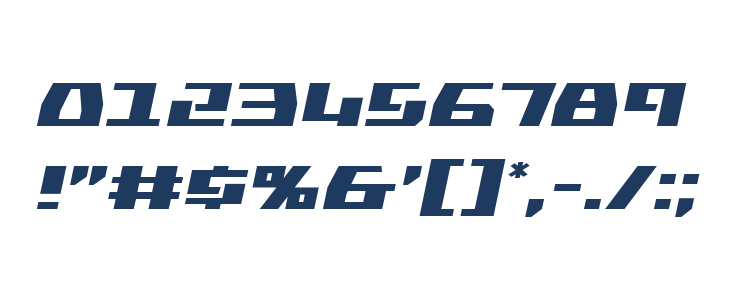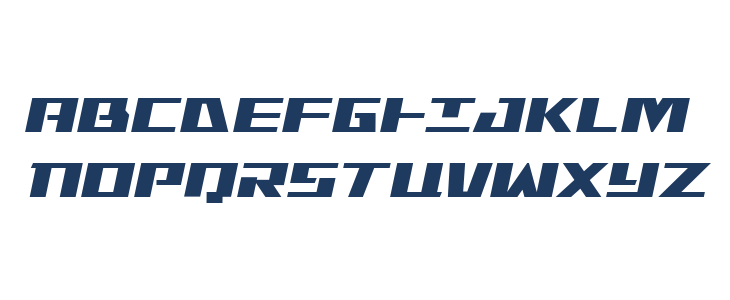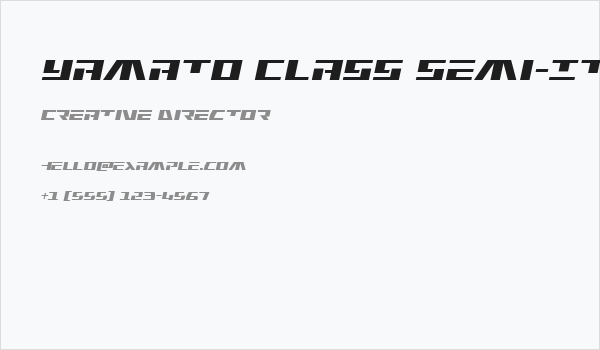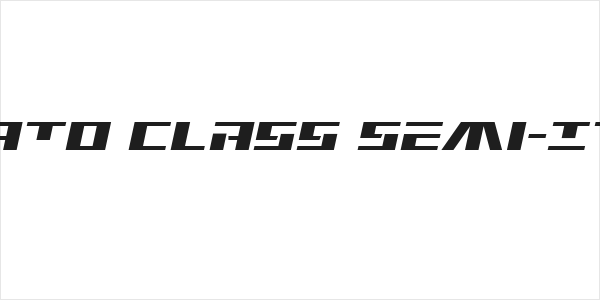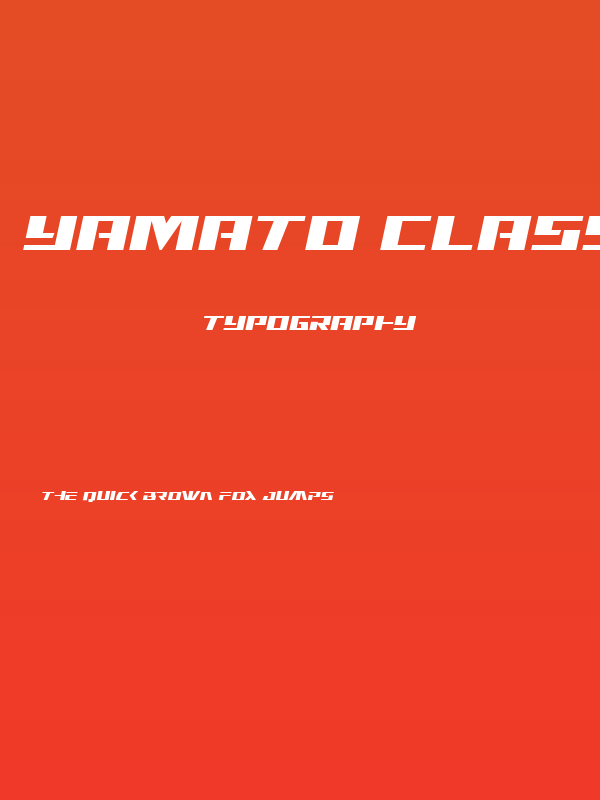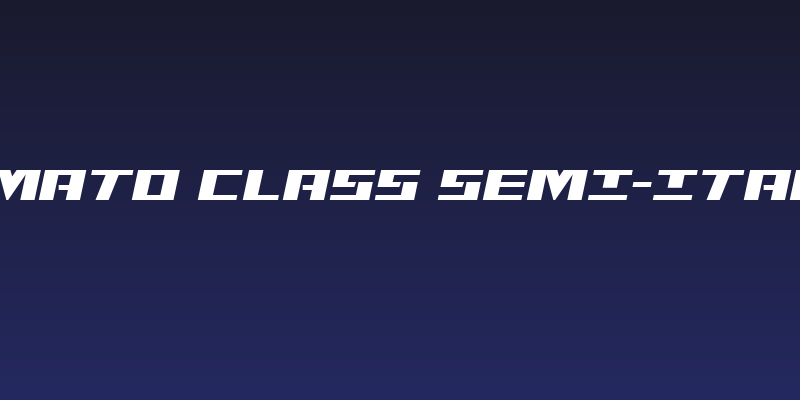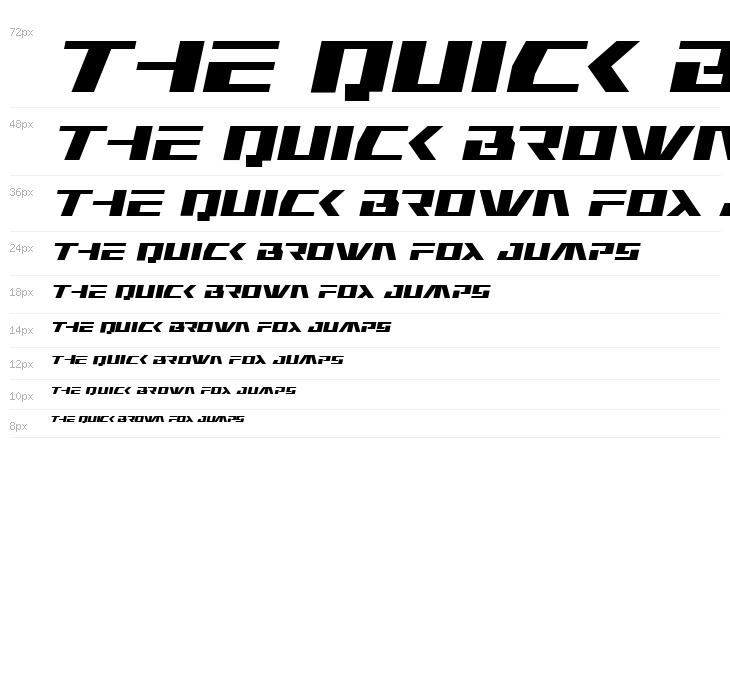
Yamato Class Semi-Italic Font
Yamato Class Semi-Italic Description
A geometric, angular sans-serif typeface with a semi-italic slant, featuring bold, blocky letterforms and sharp diagonal cuts. The characters are wide with tight spacing and consistent stroke thickness, giving a futuristic and dynamic appearance.
| Overall Style | Futuristic, Decorative, Modern |
| Proposed Projects | Video game titles, sci-fi posters, branding for tech companies, sports logos, event flyers. |